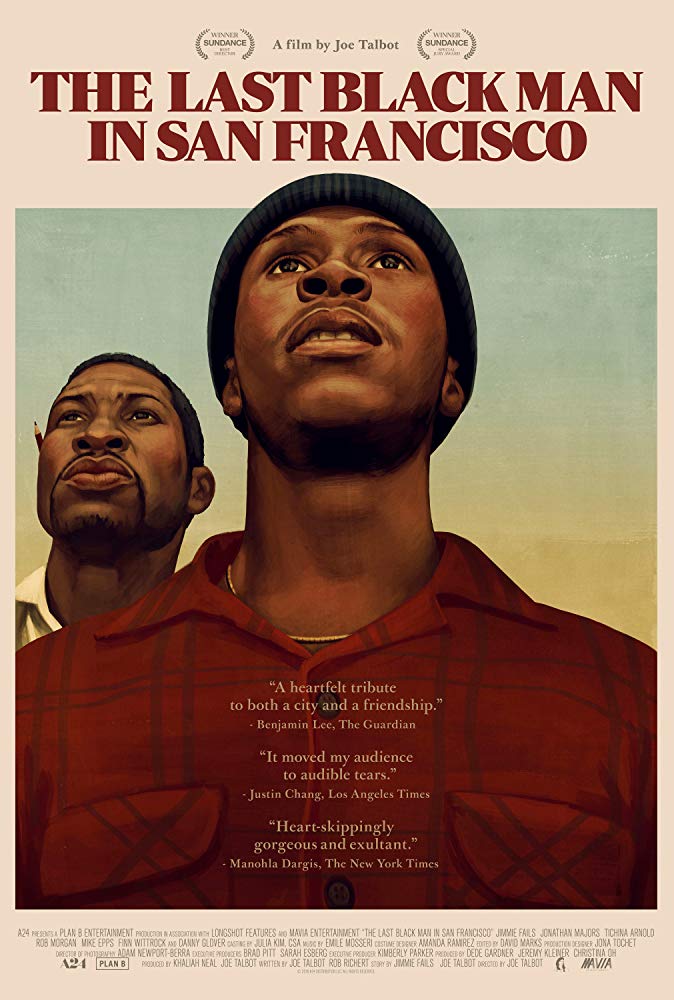
The Last Black Man in San Francisco Font
DramaThe Last Black Man in San Francisco is a 2019 American film that tells the story of a young man named Jimmie Fails, who is trying to reclaim his family's home in the rapidly gentrifying neighborhood of San Francisco.
The film poster features the title in Periódico Display Ultra Black, a tightly spaced serif font created by Emtype Foundry. Inspired by old Spanish typographic engravings Periódico typeface was originally designed for the Spanish daily newspaper ABC."